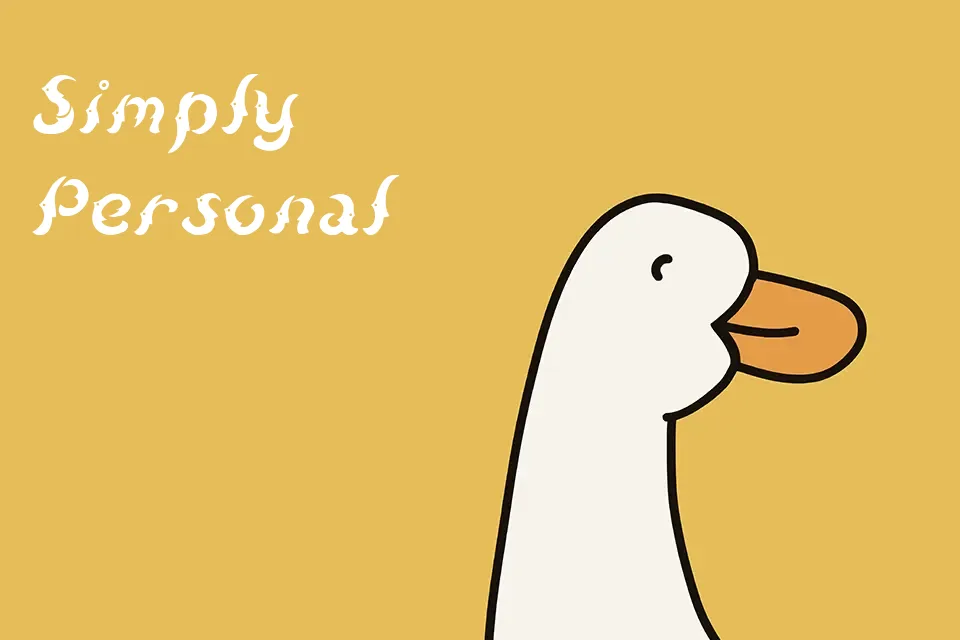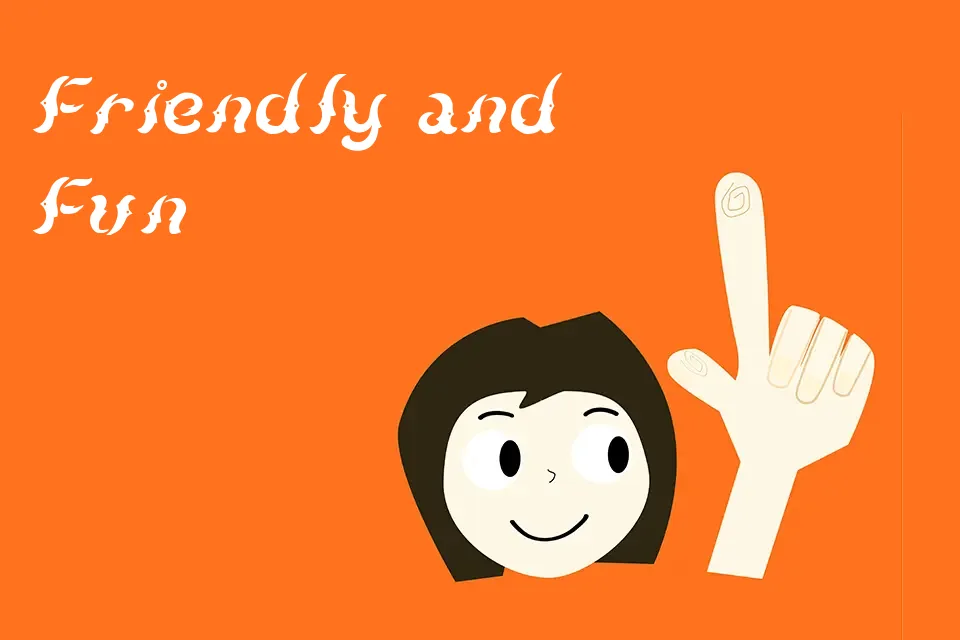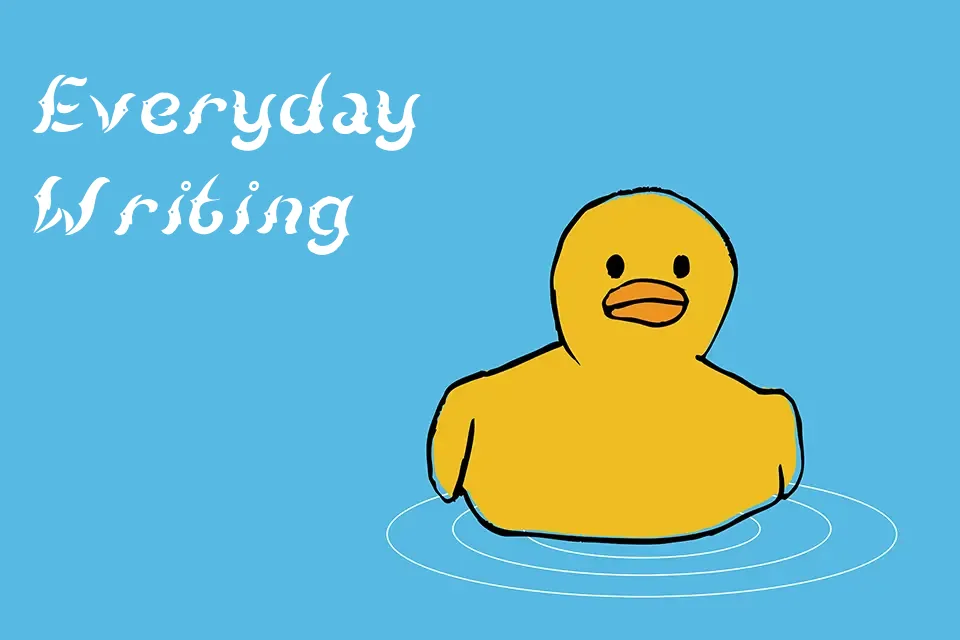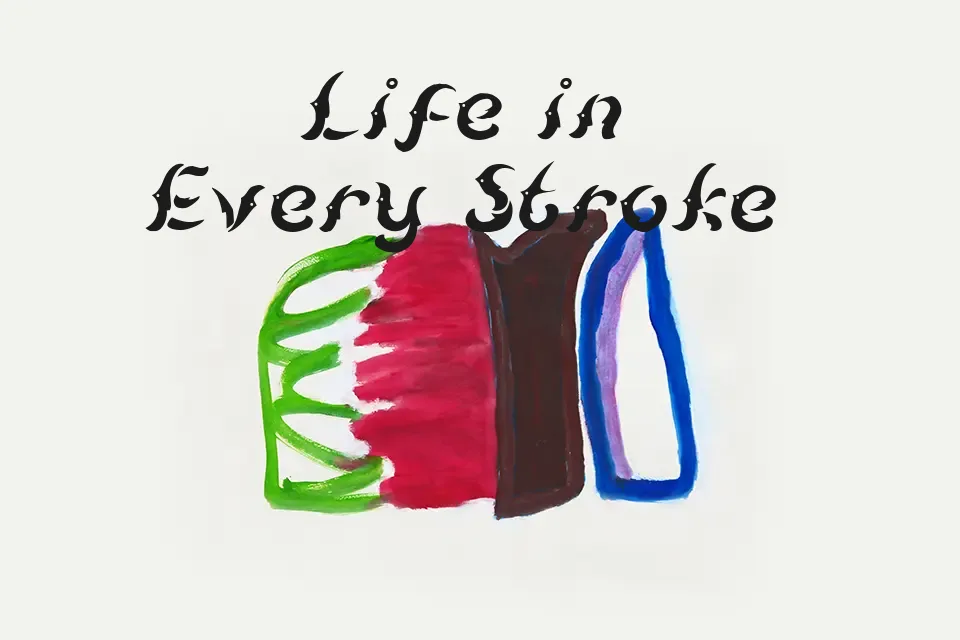
Kudihyang Font
Designed by Karen Janice Kineta
With a lively handwritten rhythm, Kudihyang Font leans into uneven strokes, soft curves, and slightly loose spacing that gives it a relaxed, personal feel. The letterforms feel organic rather than precise, which helps in projects like greeting cards, Instagram quotes, or small brand logos that aim for warmth. However, the irregular structure can reduce clarity at smaller sizes, especially in longer passages. It performs best when used as a focal display element, but struggles in body text or professional documents where consistency and readability are more critical.
– greeting card titles
– social media quote graphics
– casual brand logos
– invitation headings
– long paragraph text
– formal business documents
– small-size captions
– UI or app interfaces
Perfect for branding, invitation, and logo, with a creative and decorative style.